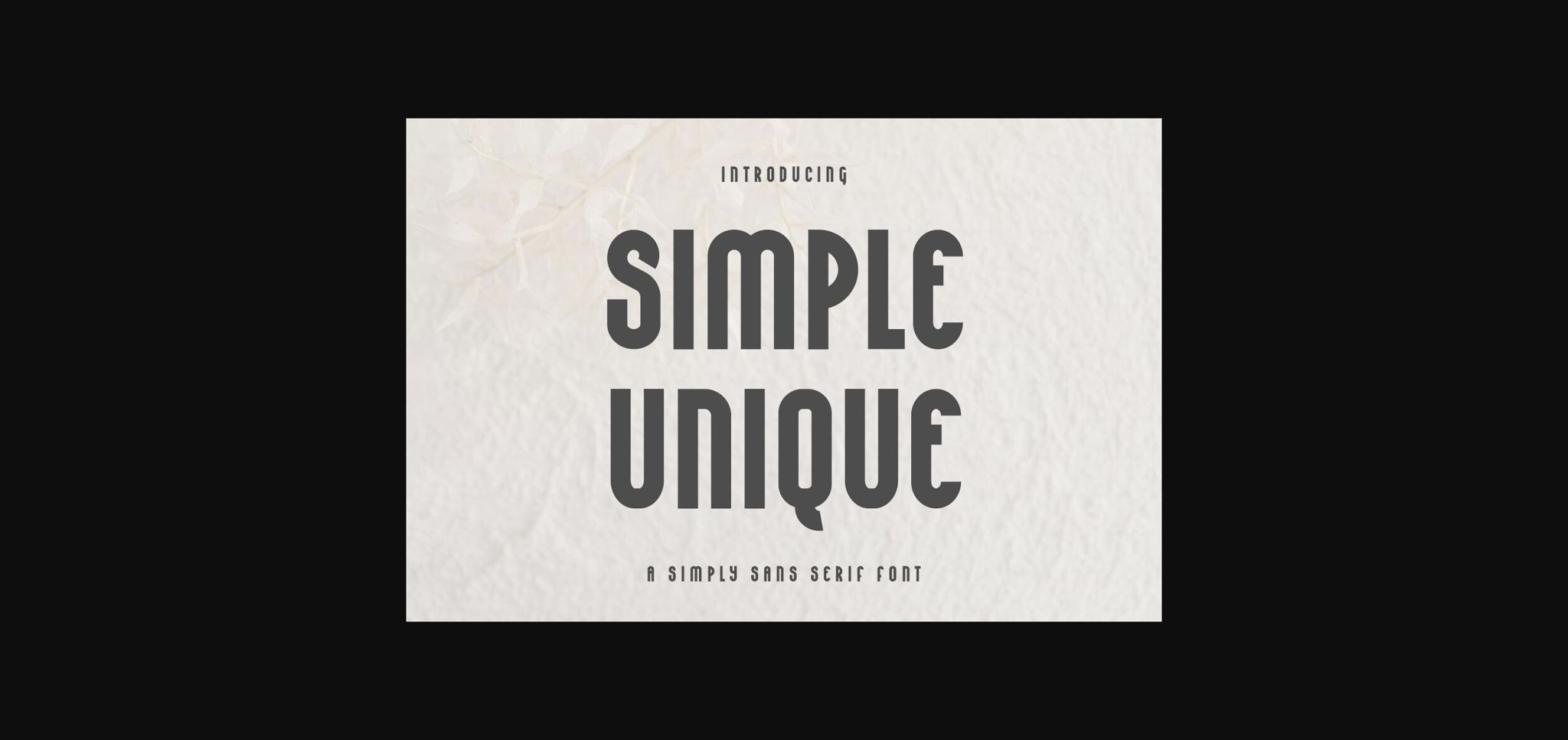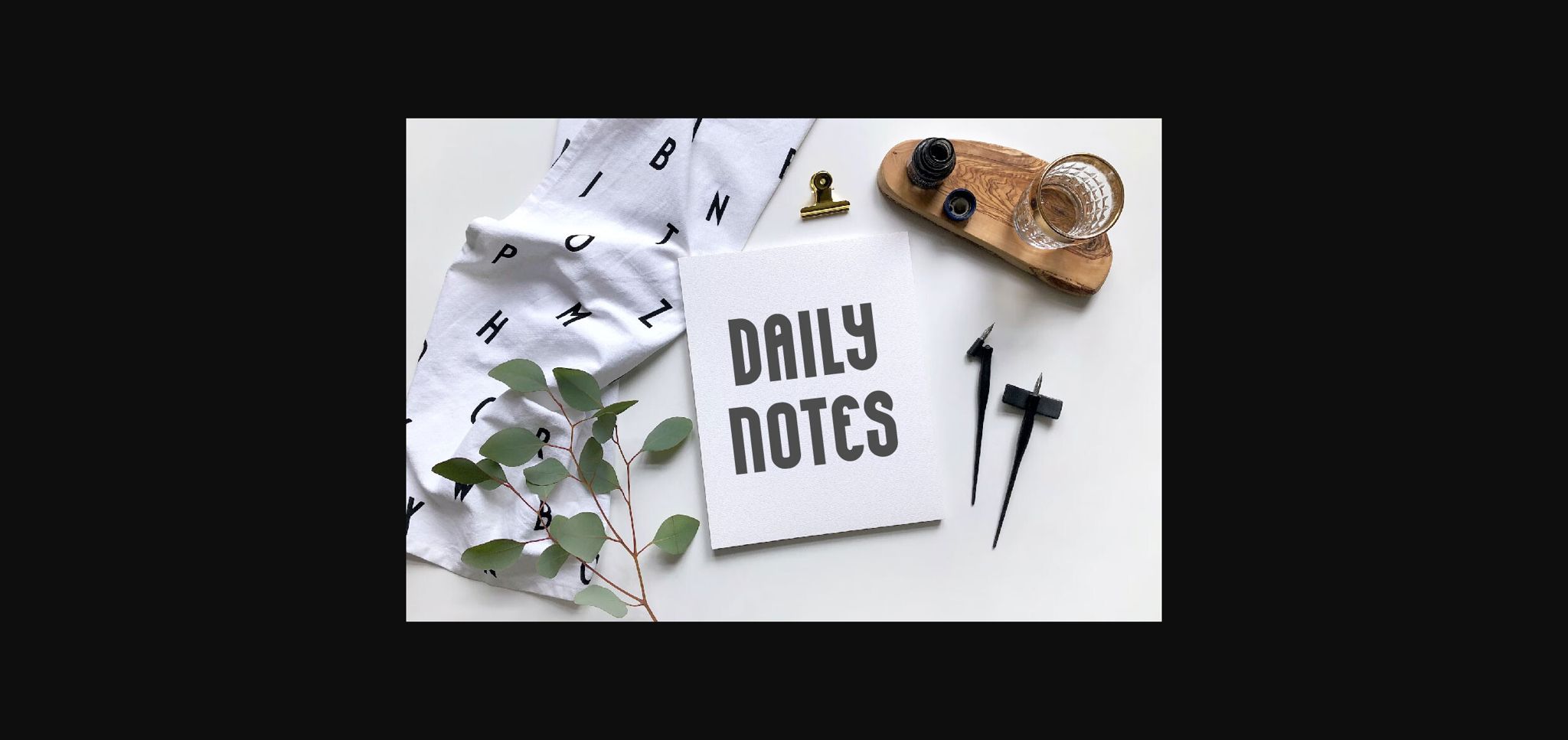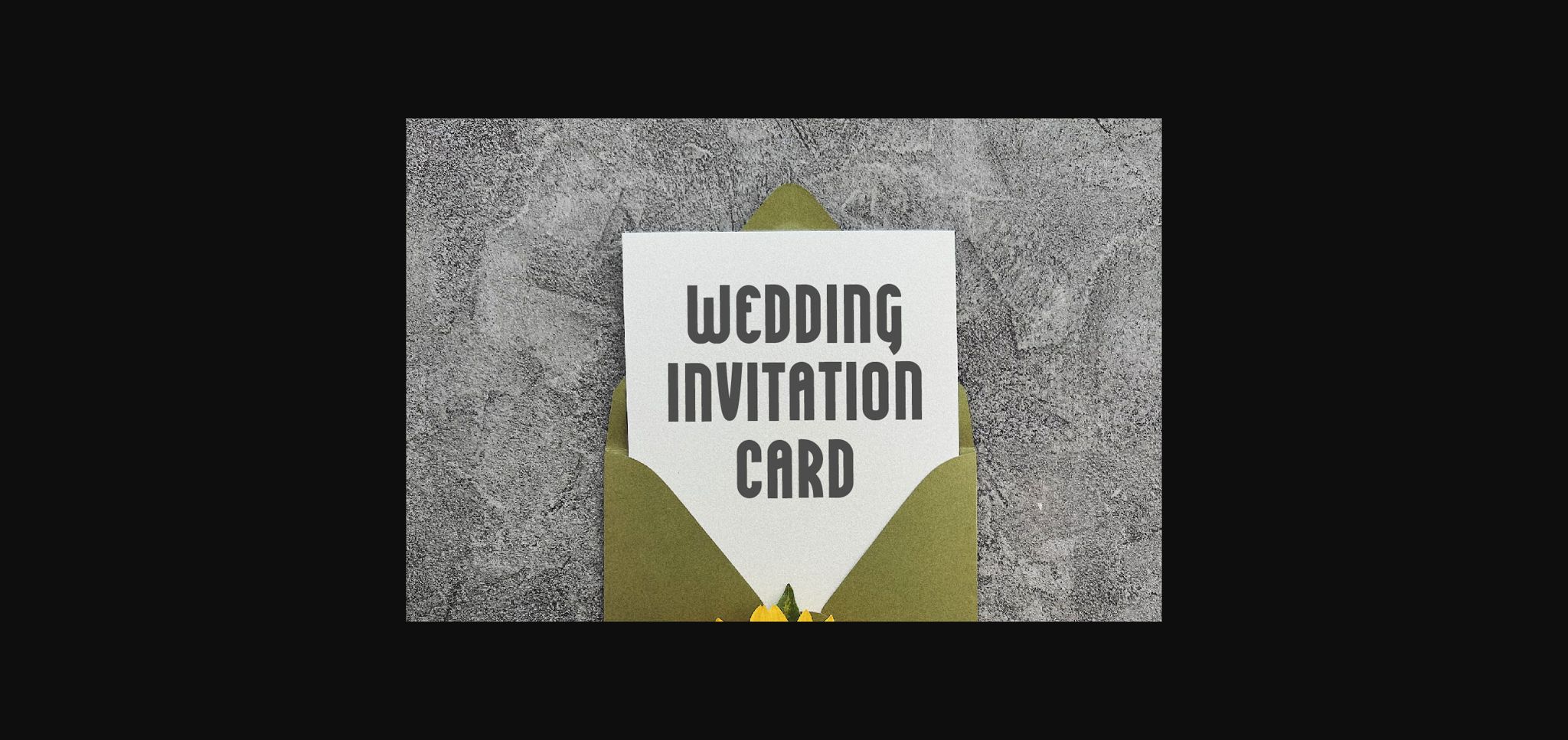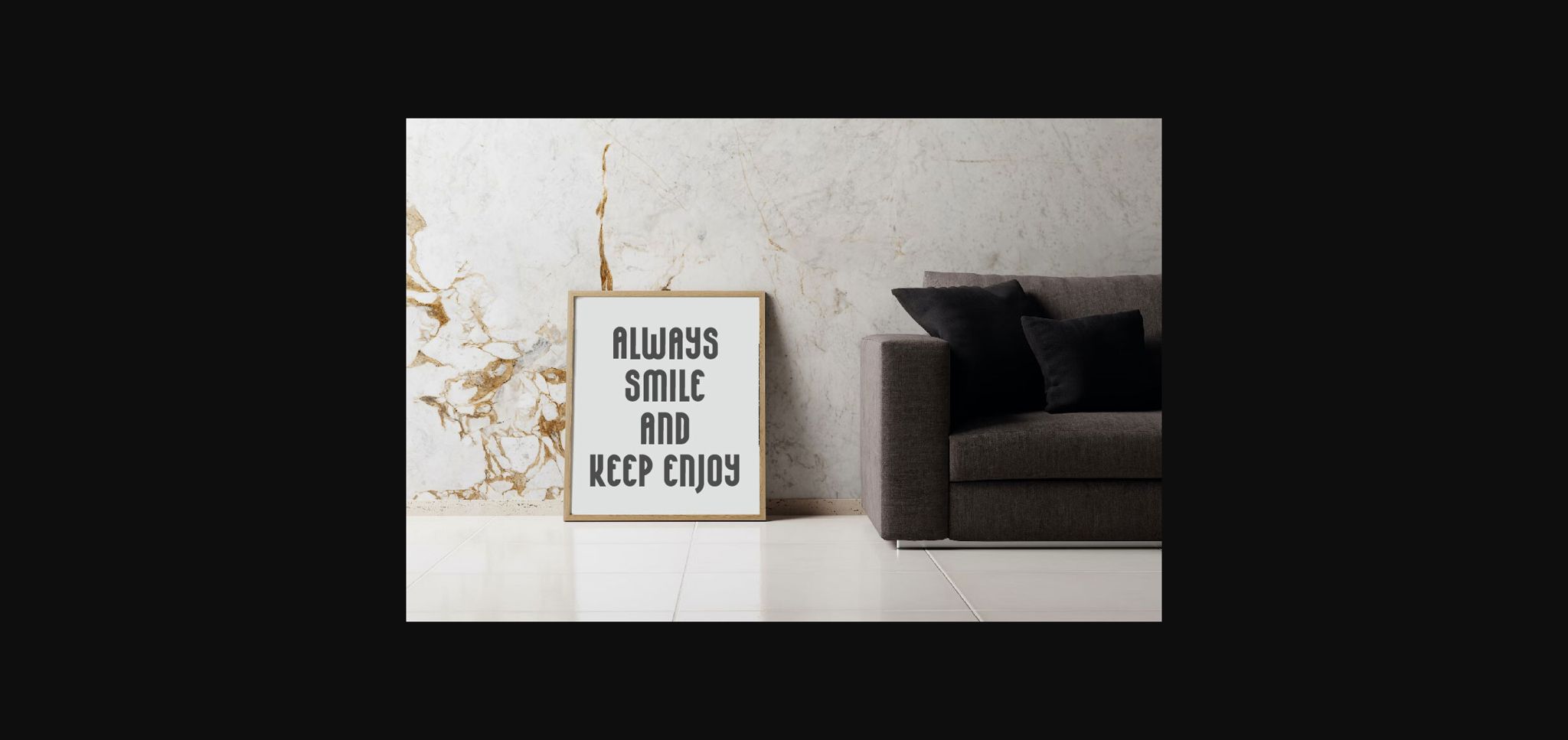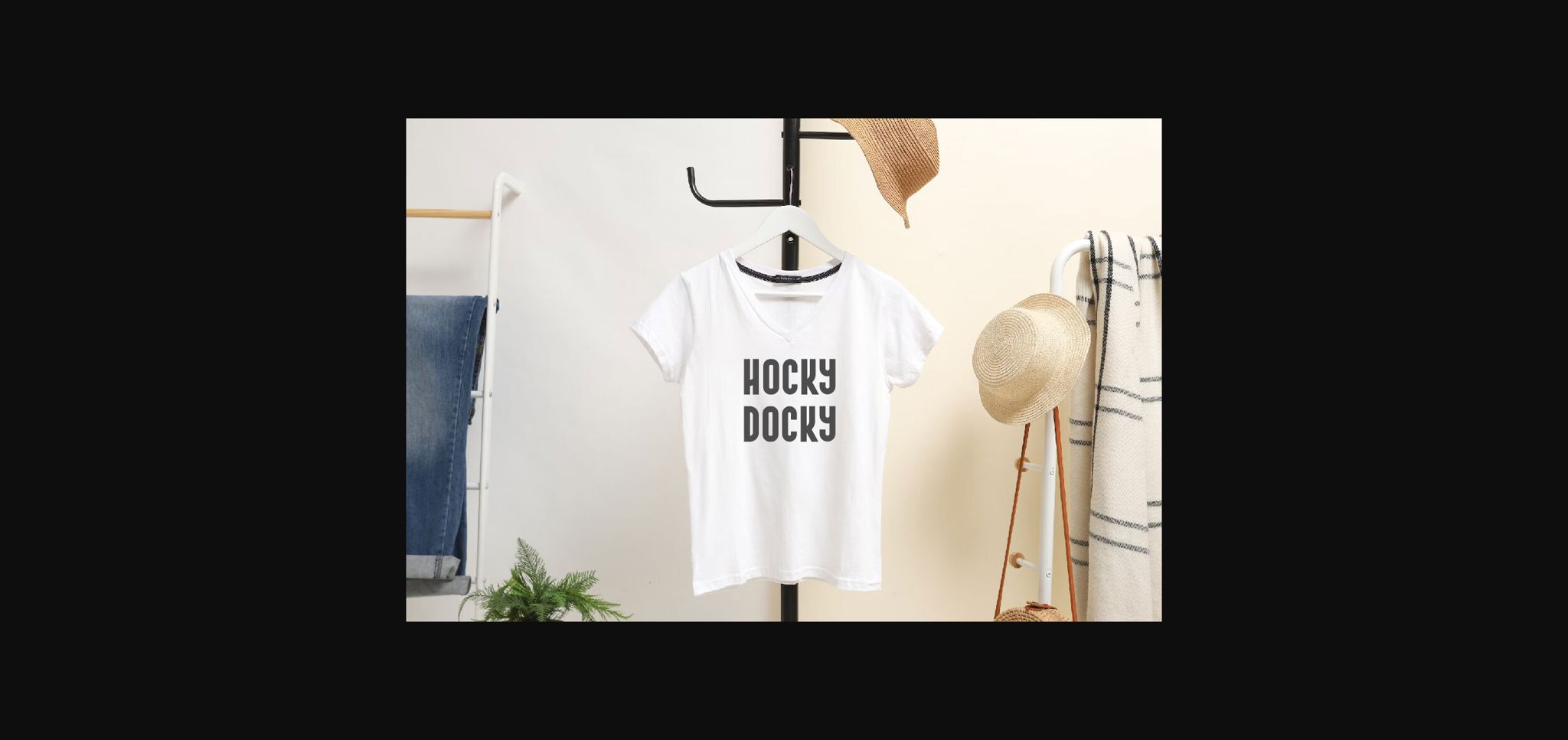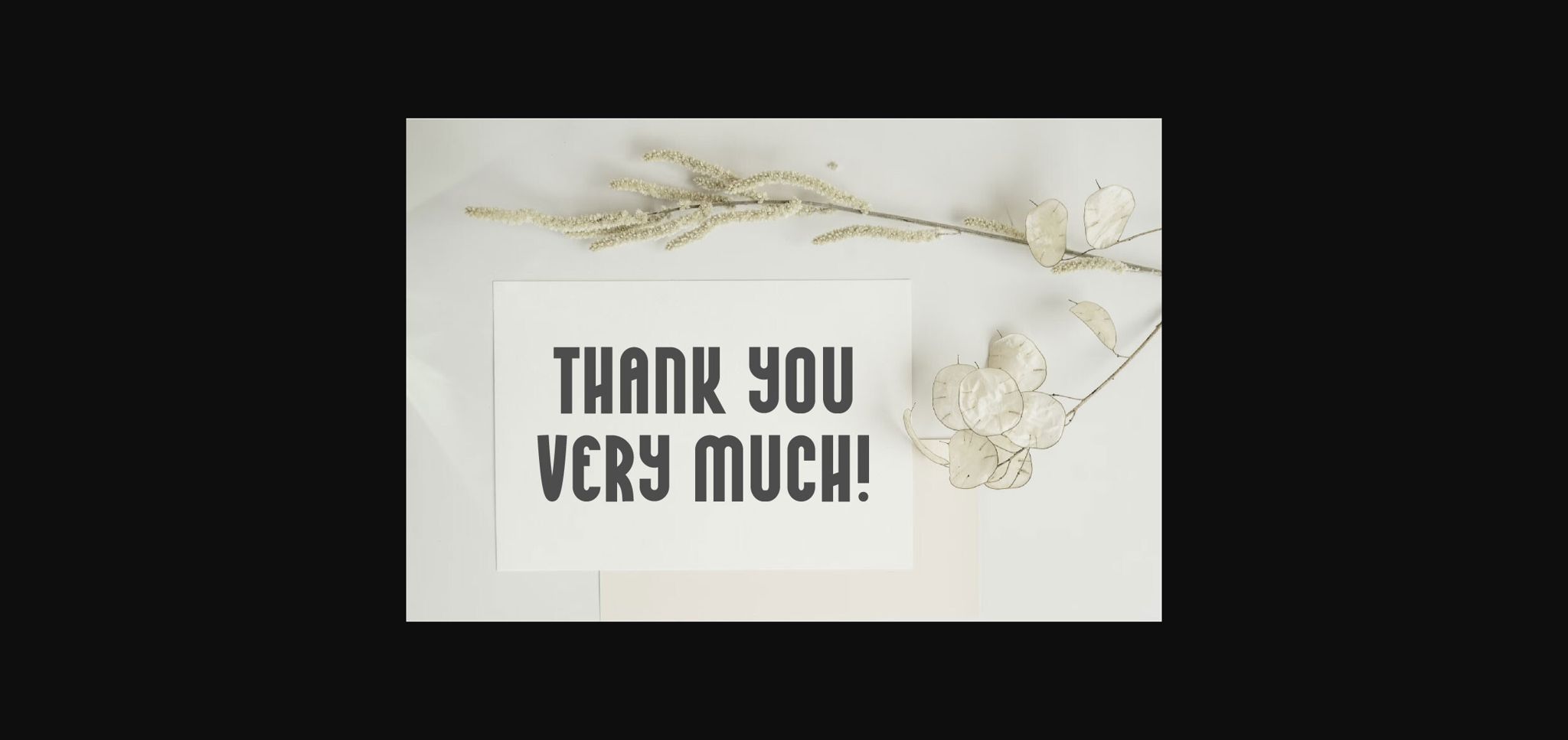
Simple Unique Font
About Simple Unique Font
Simple Unique is a simple and modern Sans Serif font. Whether you’re using it for crafts, digital design, packaging, label, wedding, poster, t-shirt, quotes, tote bag, presentations, branding or making greeting cards, this font has the potential to become your favorite go-to font, no matter the occasion